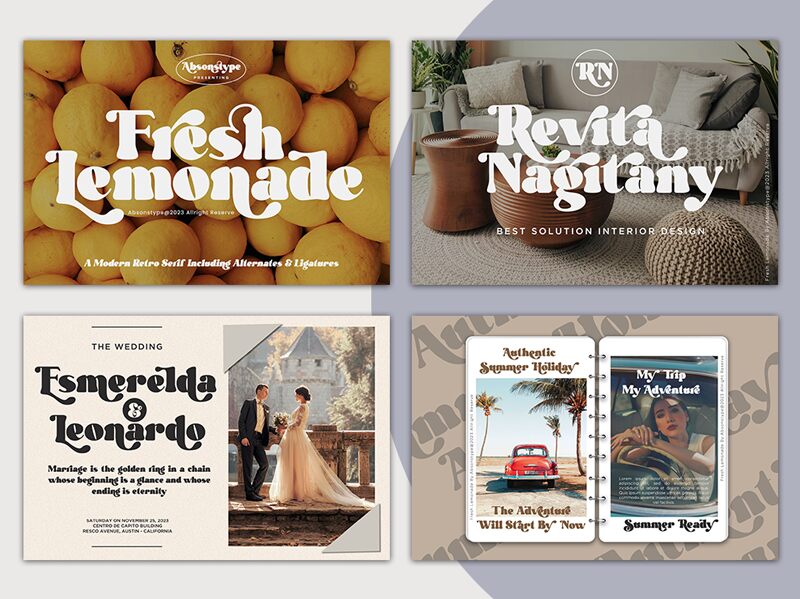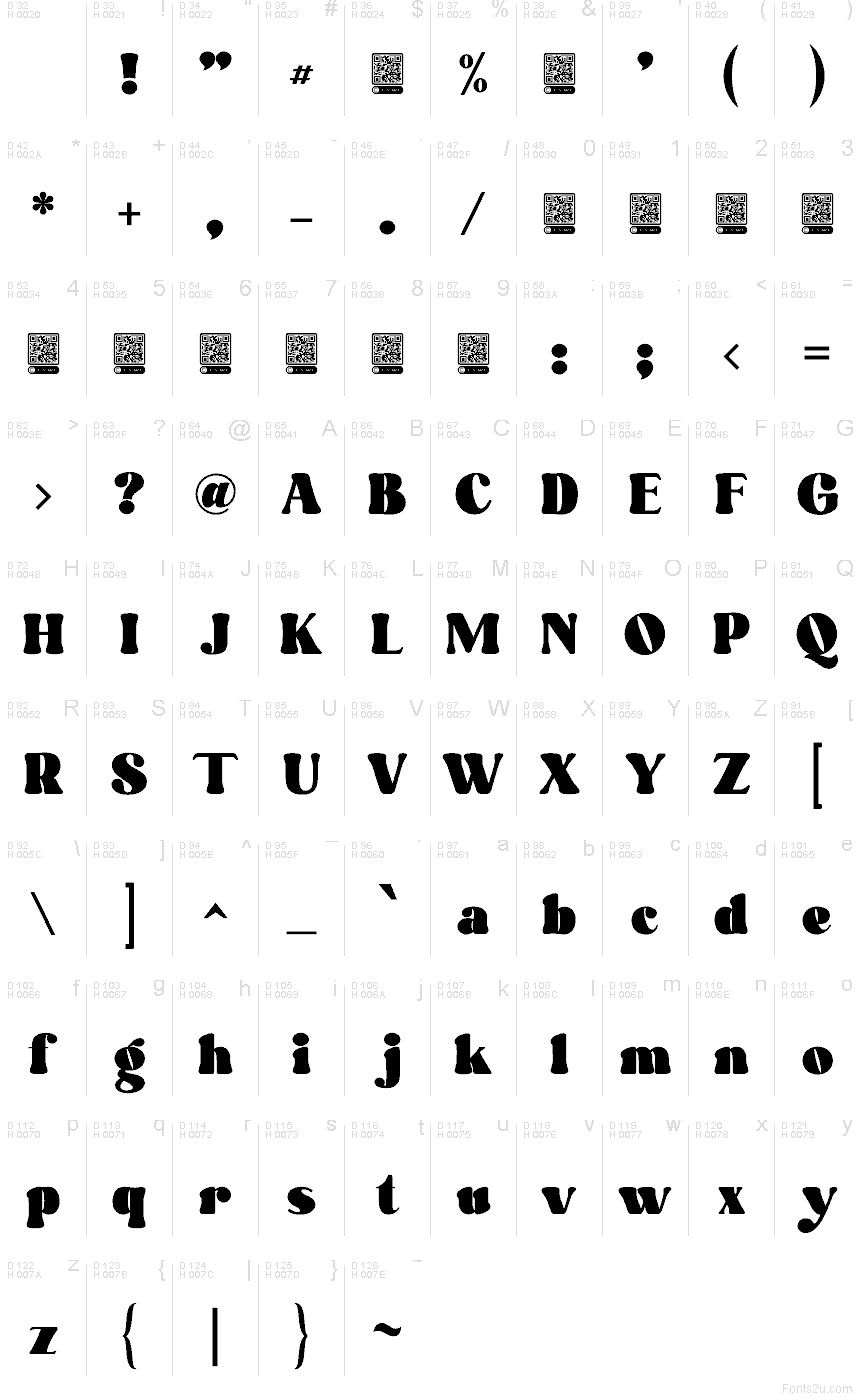
Fresh Lemonade font by Absonstype Studio is a free retro display typeface that feels like a hand-painted sign on a sun-bleached boardwalk. Thick, juicy curves and soft, inky blobs give each letter a plump, fizzy character, while the tight rhythm keeps words looking bold and unified. It has a playful, vintage shopfront vibe that instantly adds warmth and nostalgia without looking messy or chaotic.
Using Fresh Lemonade, you can bring that sunlit, throwback charm to beverage labels, summer event posters, cafe or bakery branding, sticker designs, social media promos, and playful packaging. This free font shines at larger sizes, where its chunky shapes can really breathe; pair it with a clean geometric sans for body text to keep layouts readable and grounded.